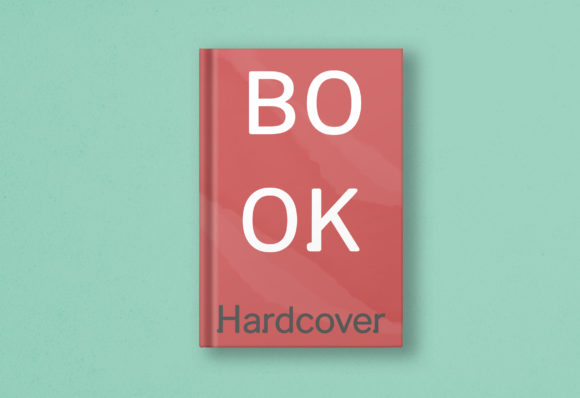
Introducing Harry Font: The Minimal Display Font to Elevate Your Designs
Are you a designer or crafter looking for a font that can add a touch of elegance and sophistication to your creative projects? Look no further than Harry Font, a minimal display font that is designed to match a wide pool of designs. With its clean lines, simple shapes, and versatile style, Harry Font is the perfect addition to your font collection.
The Characteristics of Harry Font
Harry Font is a sans-serif font that boasts a minimalist aesthetic, making it perfect for designs that require a clean and modern look. Its characters are carefully crafted to be easily readable, even at small sizes, making it ideal for use in a variety of applications, from digital displays to print materials.
One of the standout features of Harry Font is its simplicity. The font’s minimal design ensures that it won’t compete with your design elements, allowing your creative ideas to take center stage. Whether you’re designing a logo, a website, or a brochure, Harry Font provides a neutral background that will enhance your design without overpowering it.
Why Choose Harry Font?
So, why should you choose Harry Font for your design projects? Here are just a few reasons:
- Versatility: Harry Font is designed to match a wide pool of designs, making it a versatile addition to your font collection. Whether you’re working on a modern and edgy design or a more traditional and elegant one, Harry Font will fit right in.
- Legibility: The font’s clean lines and simple shapes ensure that it’s easily readable, even at small sizes. This makes it perfect for use in digital displays, where legibility is crucial.
- Elegance: Harry Font adds a touch of elegance and sophistication to any design. Its minimalist aesthetic ensures that your design will look refined and polished, making it perfect for high-end brands and luxury products.
How to Use Harry Font in Your Designs
Harry Font is a versatile font that can be used in a variety of design applications. Here are a few ideas to get you started:
- Logos: Use Harry Font to create a modern and elegant logo that will help your brand stand out.
- Websites: Add Harry Font to your website to give it a clean and modern look. Its legibility ensures that your website will be easy to read, even on smaller screens.
- Brochures and Flyers: Use Harry Font to add a touch of elegance to your print materials. Its simplicity ensures that your design will look refined and polished.
Tips for Pairing Harry Font with Other Design Elements
Harry Font is a versatile font that can be paired with a variety of design elements to create a unique and cohesive look. Here are a few tips for pairing Harry Font with other design elements:
- Use contrasting colors: Pair Harry Font with contrasting colors to create visual interest and make your design stand out.
- Add texture and patterns: Add texture and patterns to your design to give it depth and interest. Harry Font’s simplicity ensures that it won’t compete with your design elements.
- Experiment with different sizes: Experiment with different sizes of Harry Font to create visual hierarchy and emphasize important design elements.
Harry Font is a minimal display font that is designed to elevate your designs and bring your creative ideas to life. Its versatility, legibility, and elegance make it a perfect addition to your font collection. Whether you’re a designer or crafter, Harry Font is a must-have font that will help you create stunning designs that will leave a lasting impression.